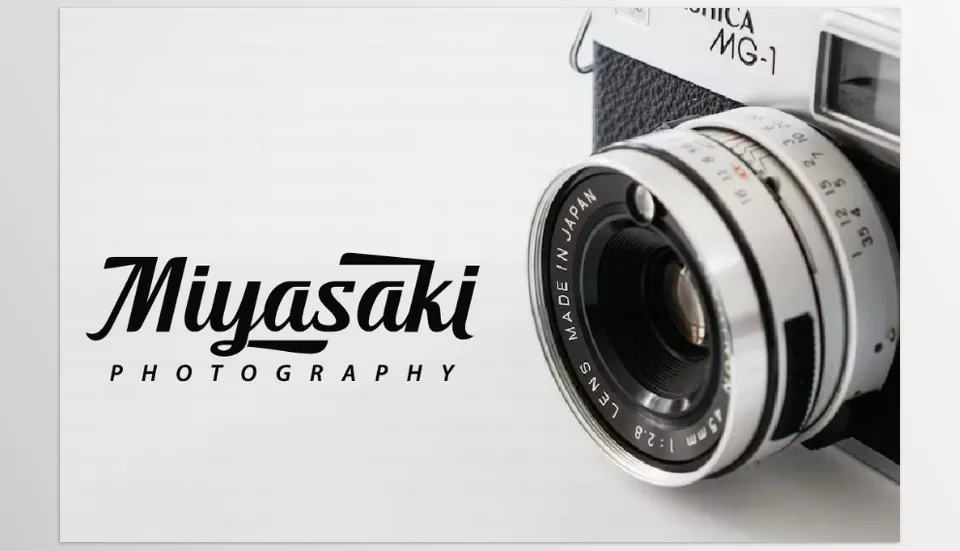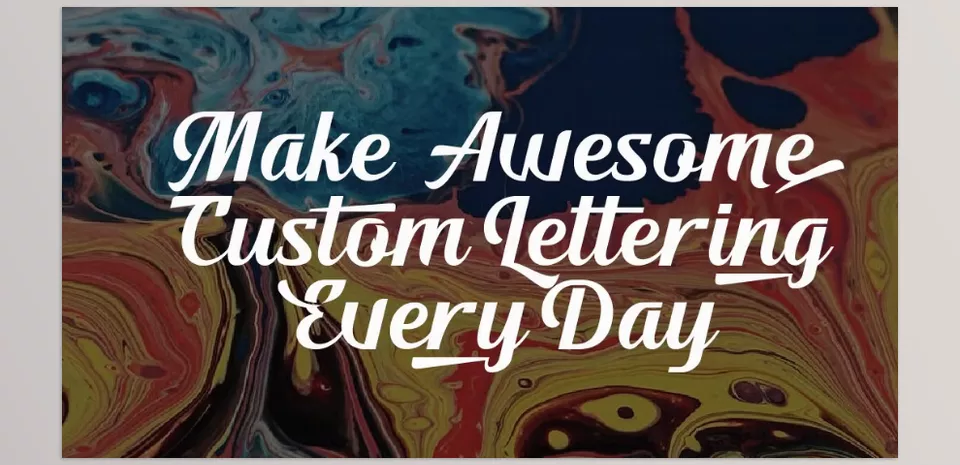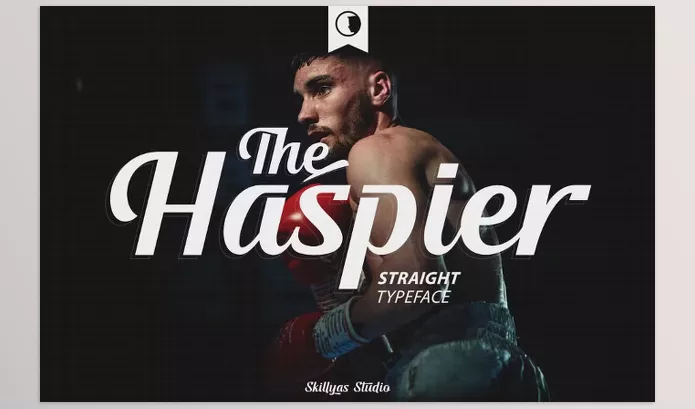
Skillyas_Studio has developed a striking typeface called Haspier Straight Script Font. This typeface is bolder and has sharp edges that make it more appealing. The typeface is perfect for multilingual branding, logo creation, and other creative projects due to its unique customization options.
Skillyas_Studio – The Haspier Straight Script Font Features
• Modern and Bold Design: The font is contemporary and bold, showcasing impressive curves and an eye-catching design.
• Highly Adaptable: This font offers everything from logo branding to poster lettering and magazines; this font adapts to all of it.
• Extensive Character Set: It contains supporting characters for every language alongside uppercase, lowercase, symbols, and punctuation.
• Professional Ligatures: The font has ligatures crafted carefully to ensure a polished presentation.
Preview The Haspier Straight Script Font
Image 1: Supports Uppercase & Lowercase Letters
The Haspier Straight Script Font - Supports Uppercase & Lowercase Letters
Image 2: A Modern sharp bold script.
The Haspier Straight Script Font - a Modern sharp bold script.